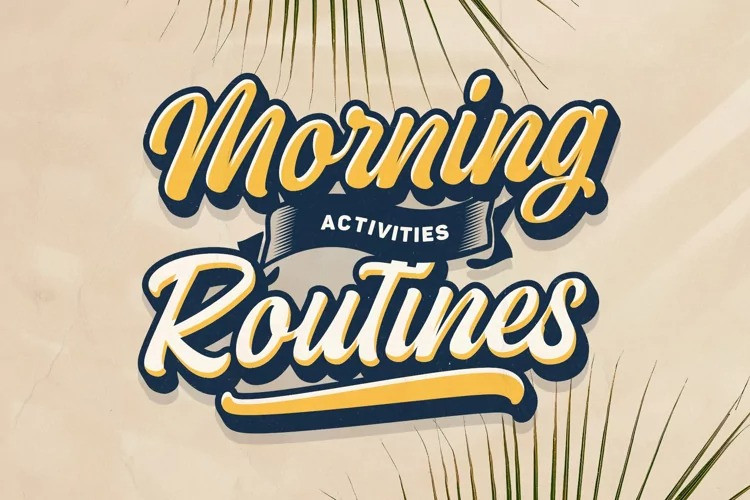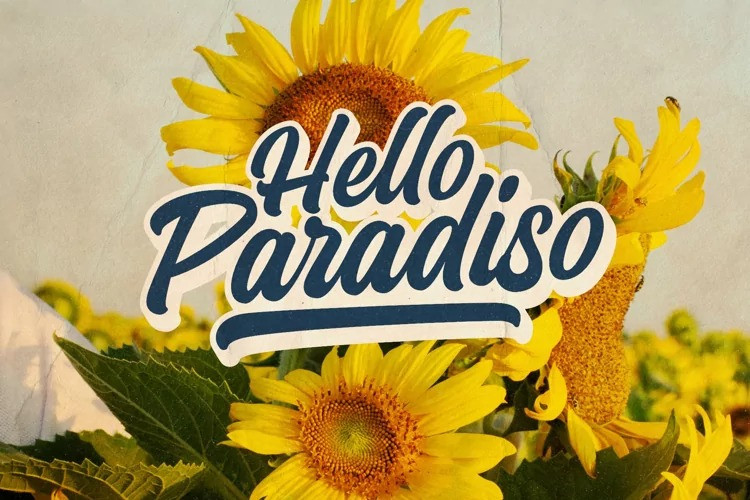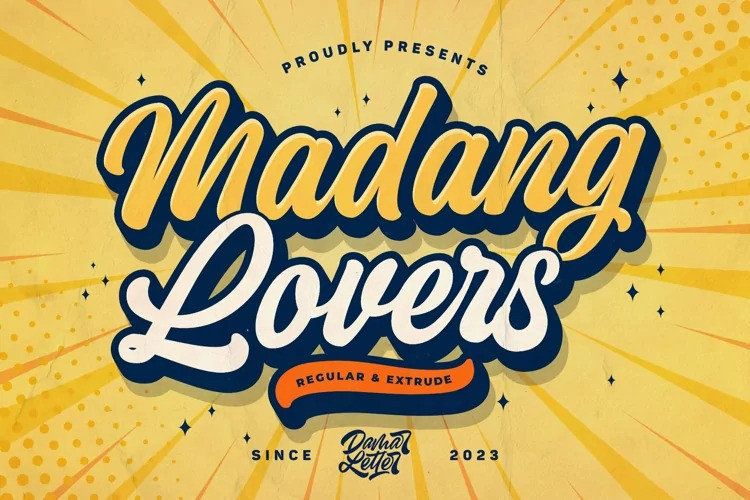
Madang Lovers Font
It’s time to see our impressive font, Madang Lovers Script Font, is a lovely script font with a cute feel. Get inspired by its nostalgic charm!